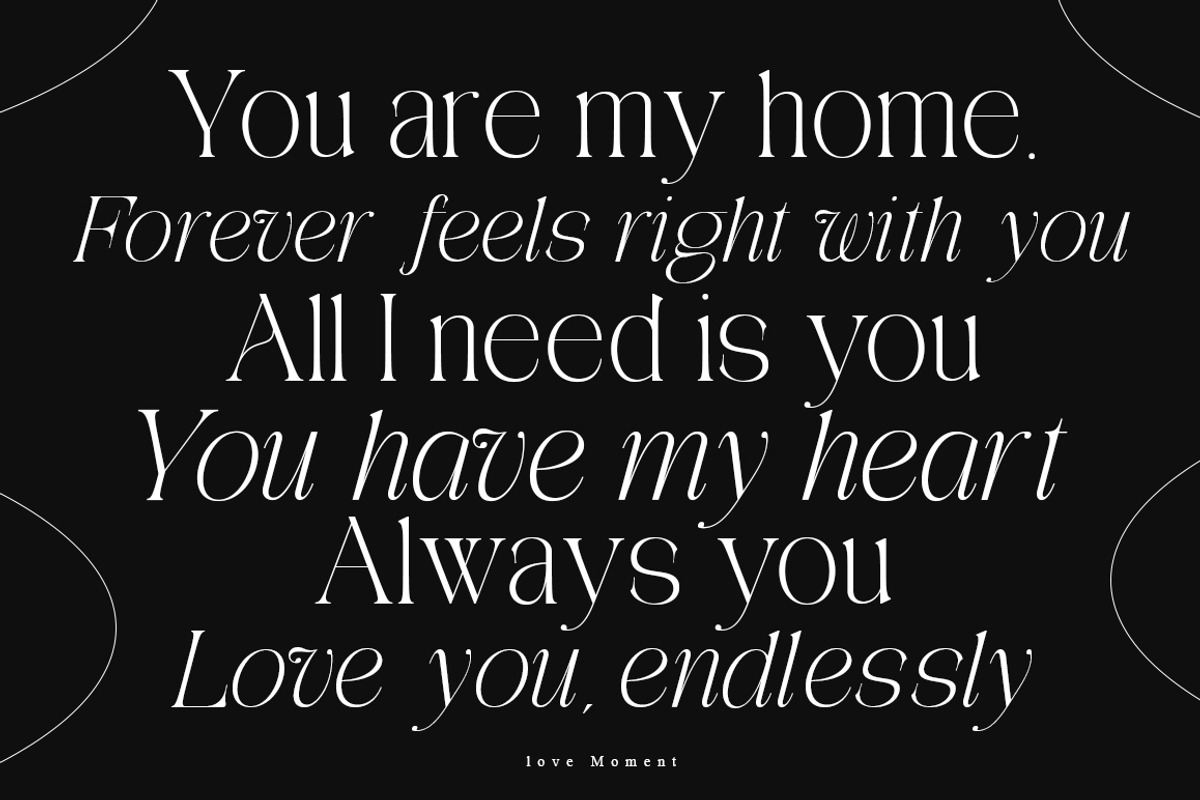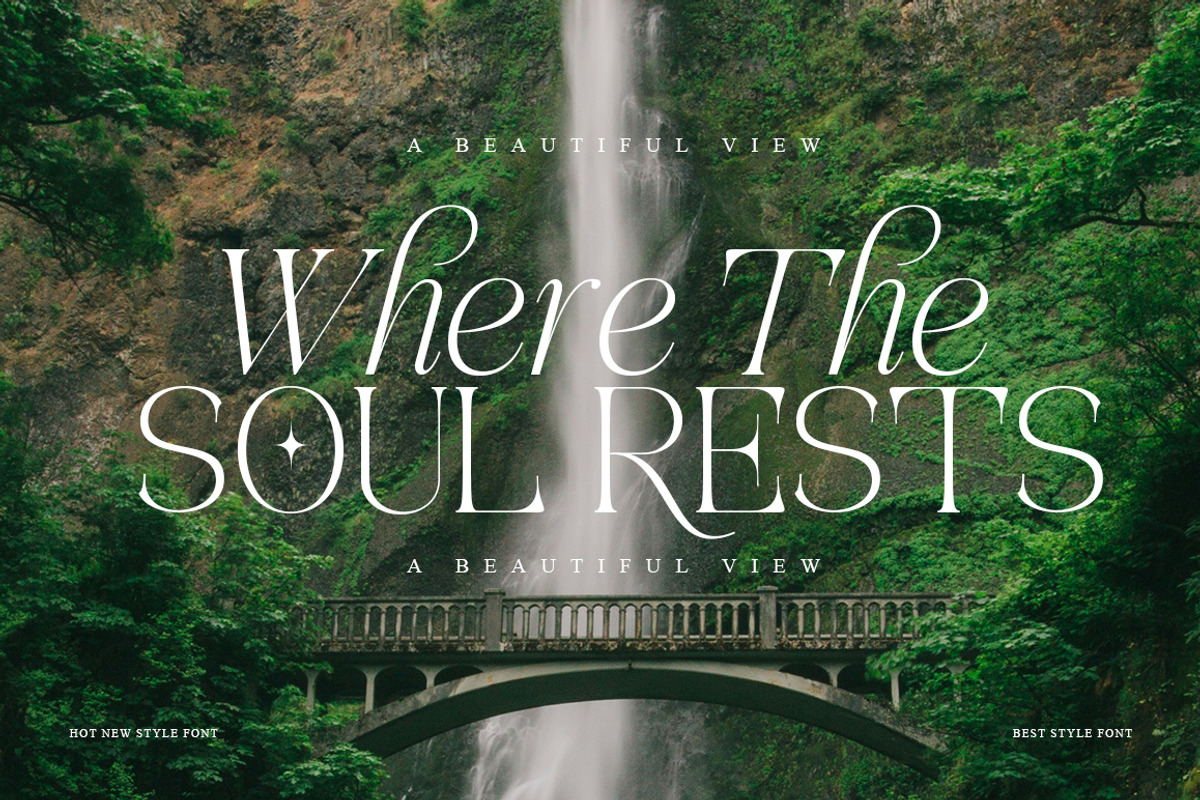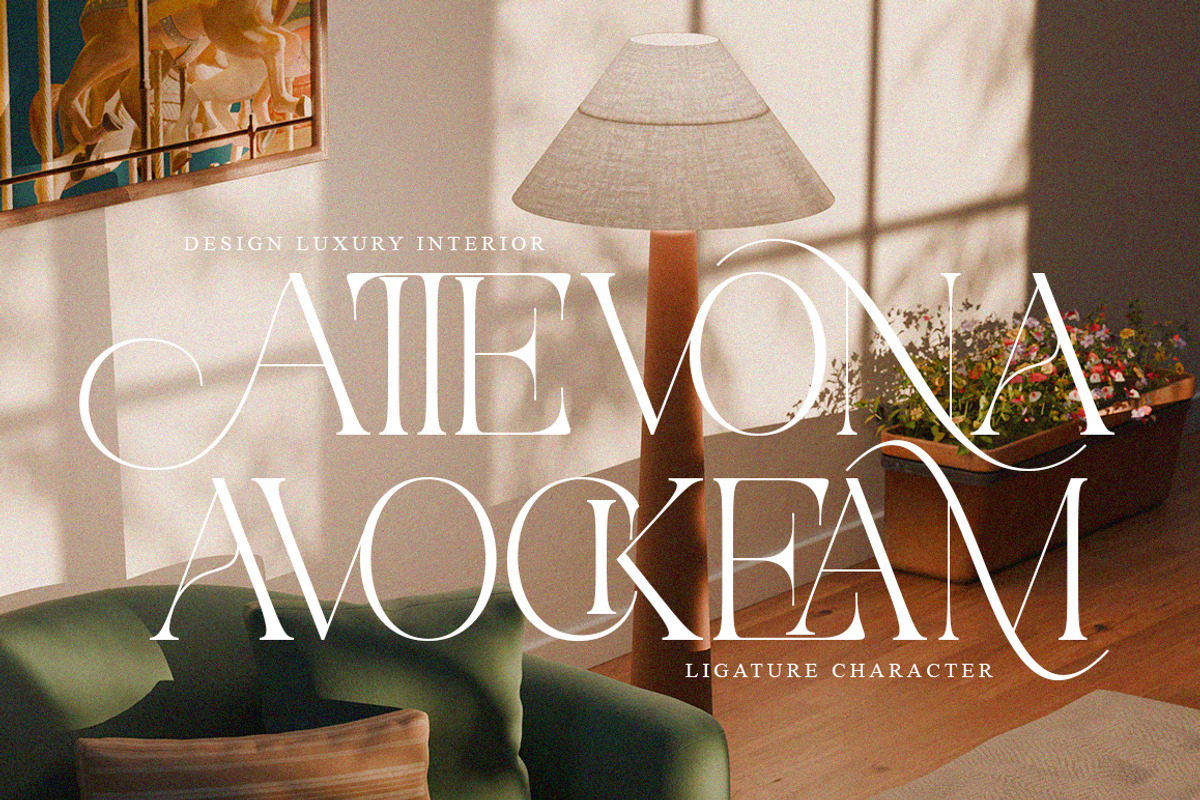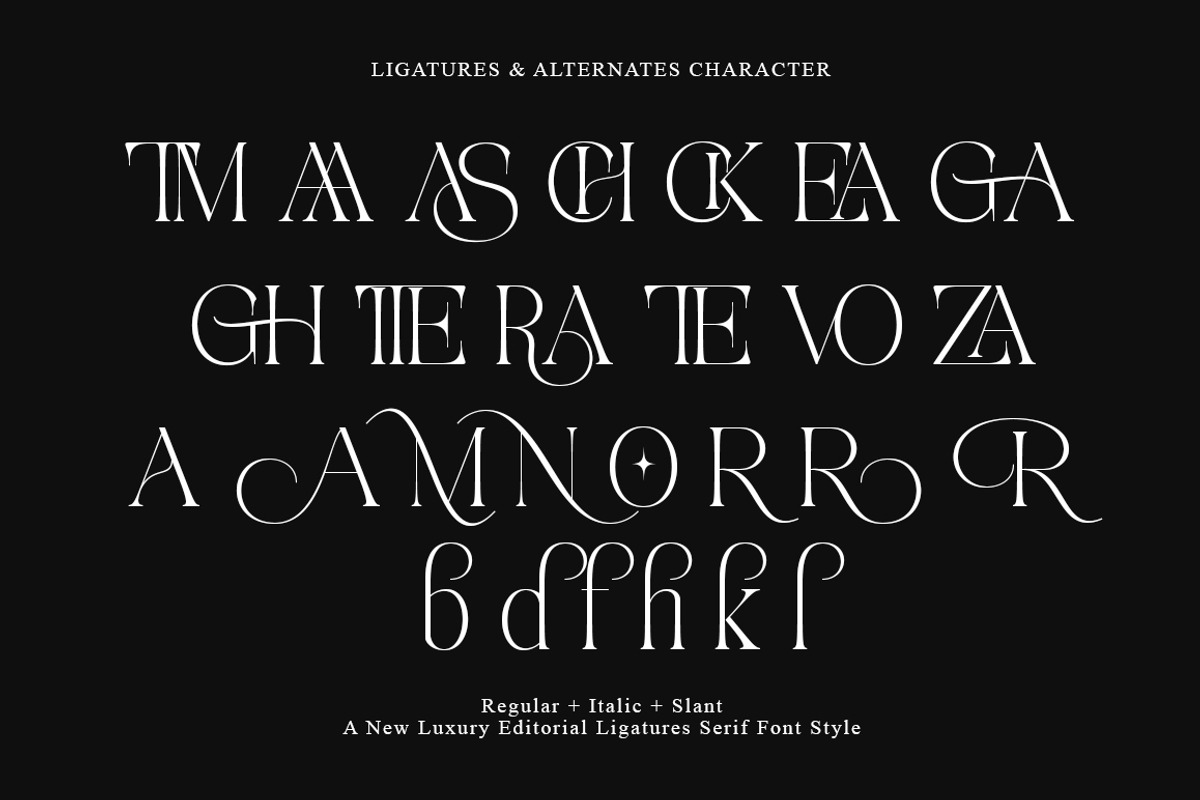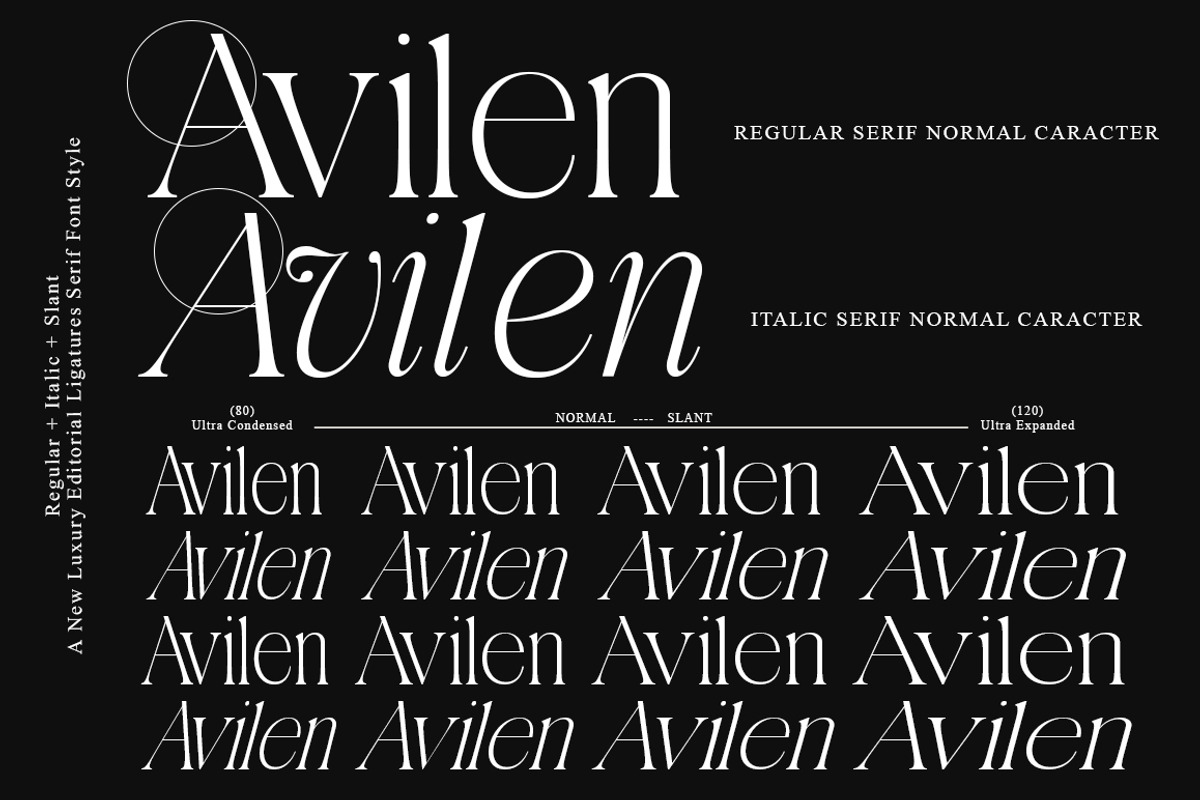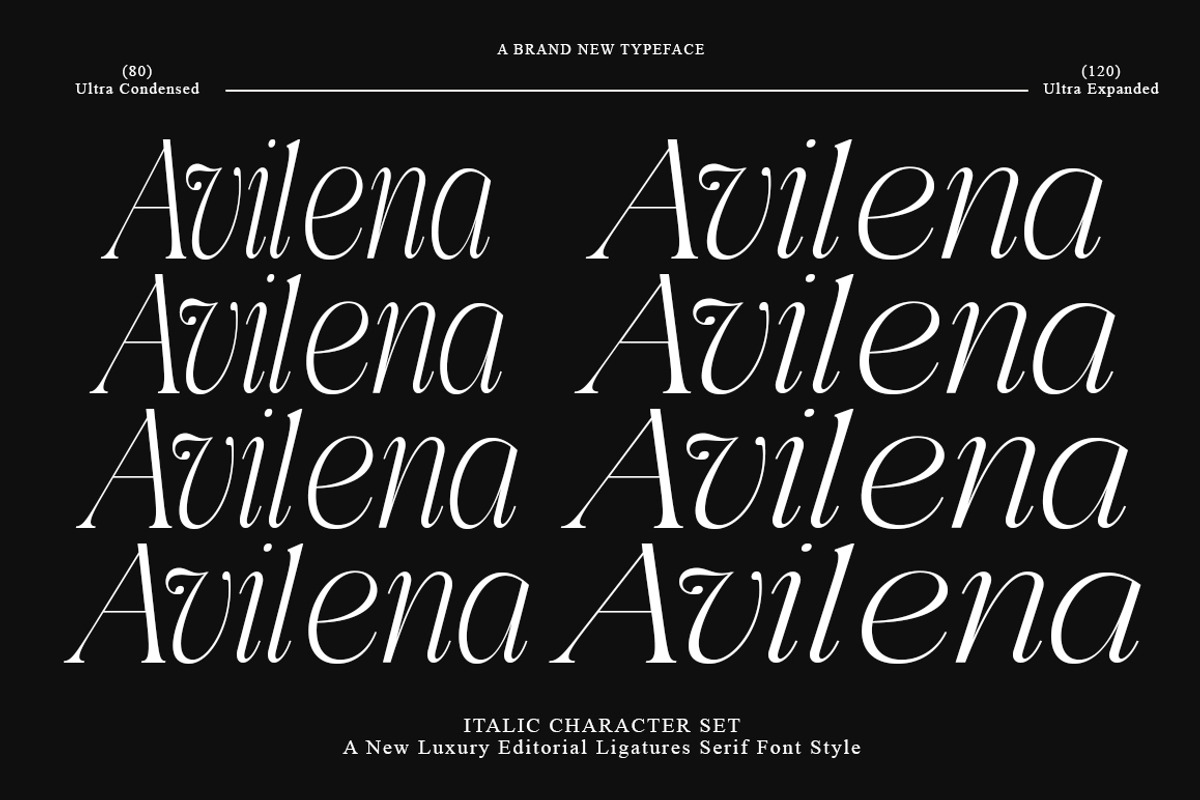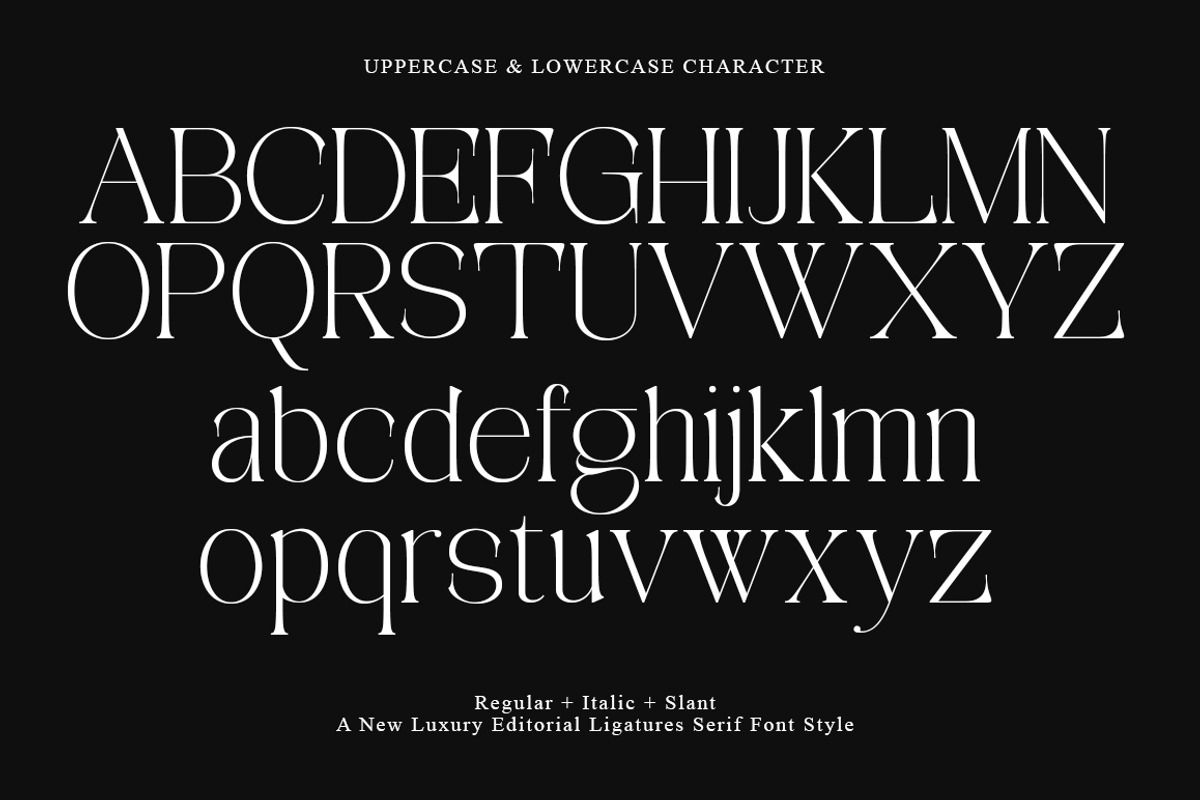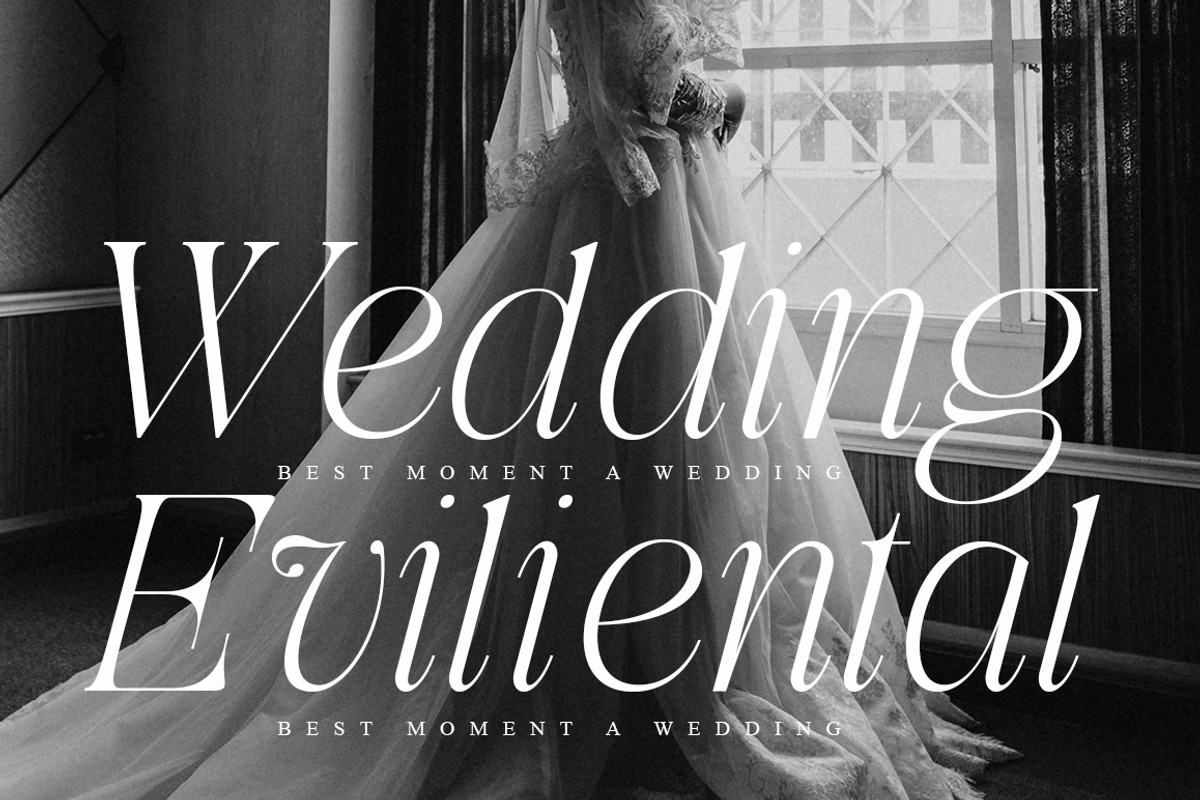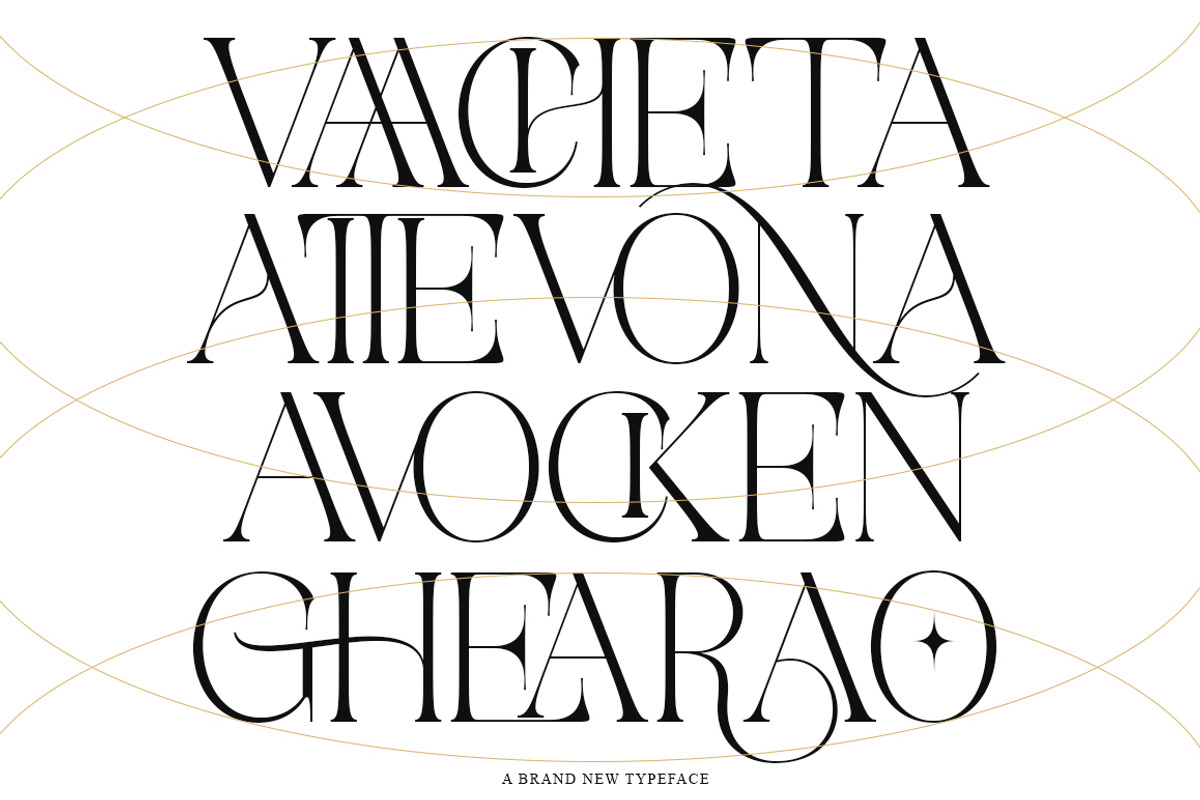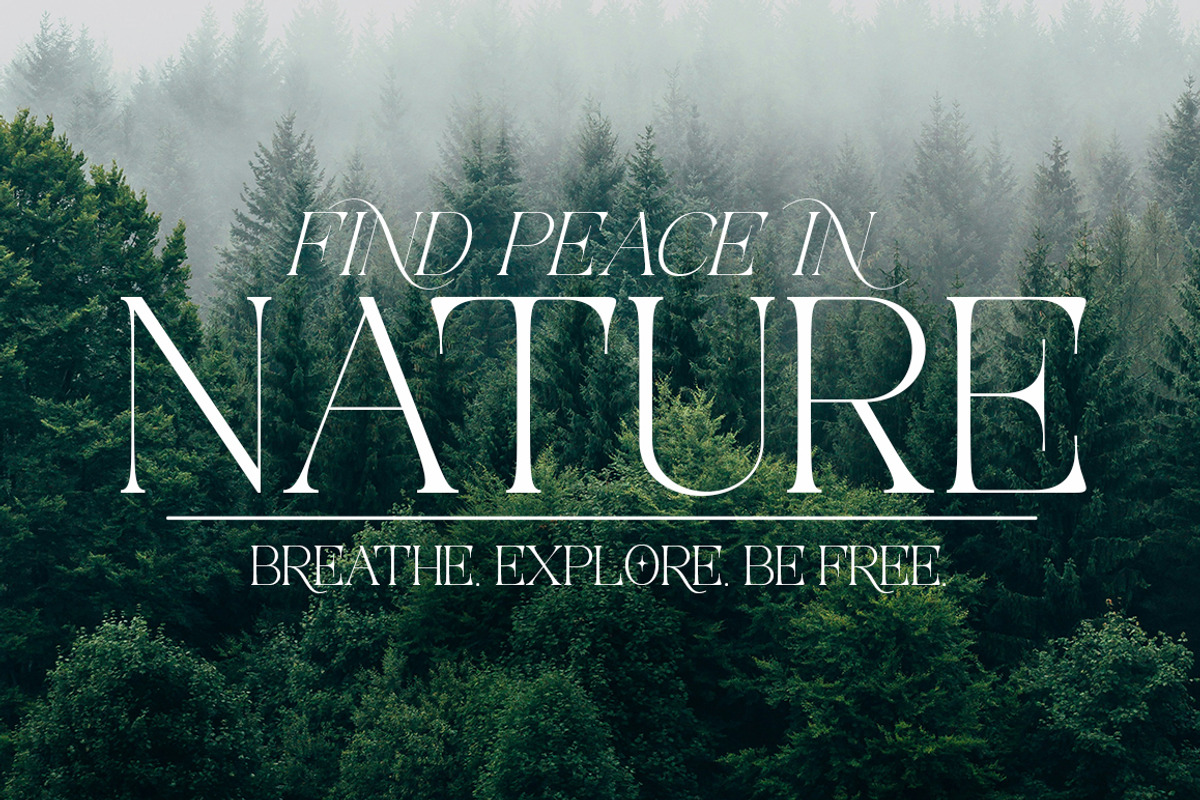
Aviluero Rasnora — Elegant Serif Typeface
Aviluero Rasnora is an elegant serif typeface crafted to bring a sense of timeless beauty, sophistication, and refined character to your designs. Featuring graceful letterforms, delicate details, and a collection of stylish ligatures and alternate glyphs, Aviluero Rasnora adds a distinctive and luxurious touch while maintaining excellent readability.
Designed for creatives who appreciate elegant typography with a unique personality, this typeface is perfect for luxury branding, editorial design, fashion projects, logos, invitations, wedding stationery, packaging, magazines, social media graphics, advertising, and sophisticated display typography.
With its combination of classic serif proportions and subtle modern details, Aviluero Rasnora gives your typography a polished and memorable appearance.
✦ Features
Elegant & sophisticated serif design
Stylish ligatures
Extensive glyph selection
Alternate characters
OpenType features
✦ Perfect For
✦ Multilingual Support
Aviluero Rasnora includes multilingual characters to help you create beautiful typography for a wider range of languages and design projects.
Bring a touch of elegance, luxury, and timeless sophistication to your next creative project with Aviluero Rasnora.